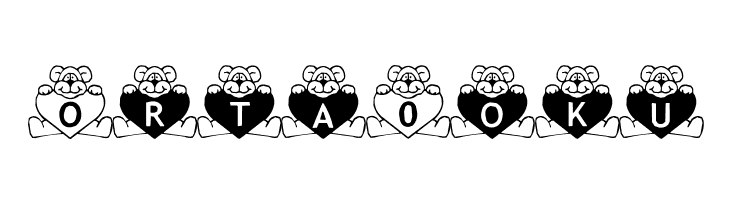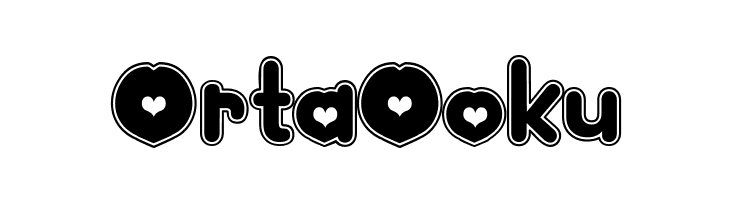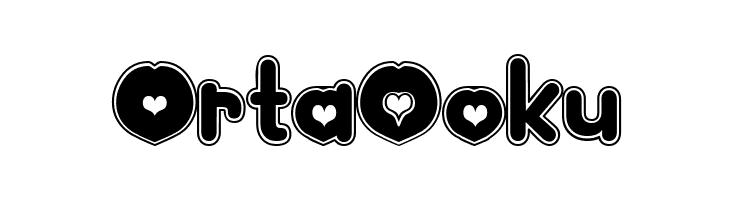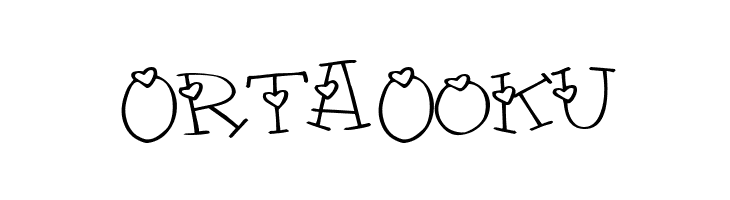
( Fonts by Loraine Wauer Ferus www.billybear4kids.com )
A whimsical font with teddy bears holding heart-shaped characters, perfect for playful designs.
A playful, heart-themed decorative font with bold, rounded characters.
A playful, heart-themed decorative font with bold, outlined characters.
A whimsical, heart-adorned font with a playful and romantic style.